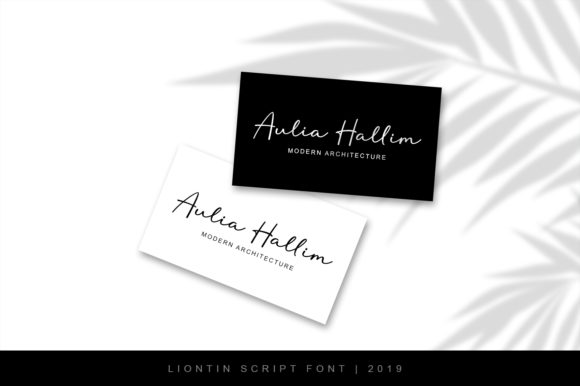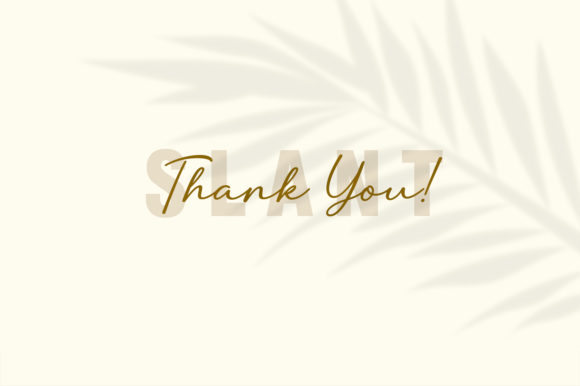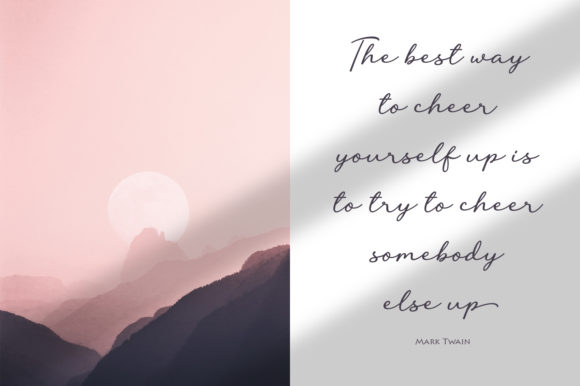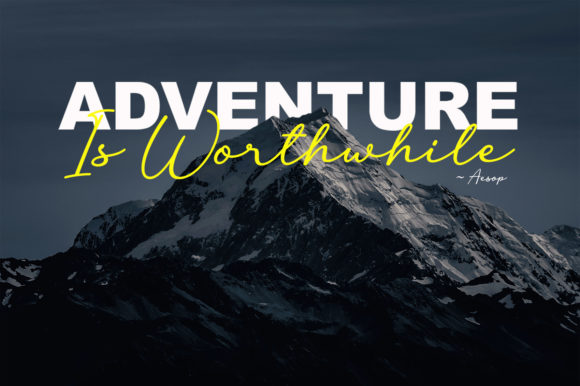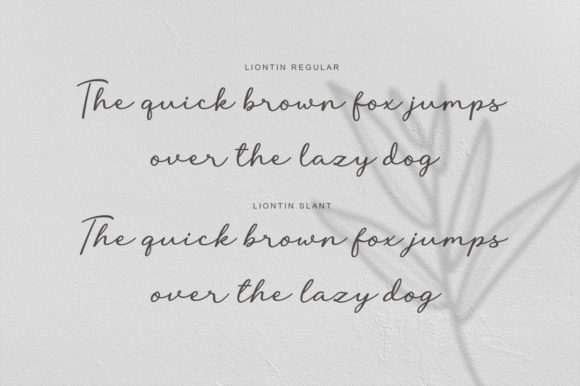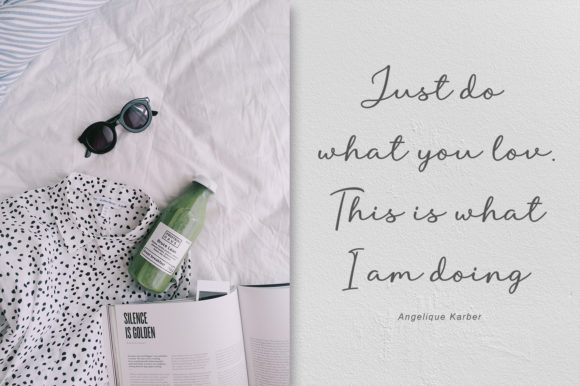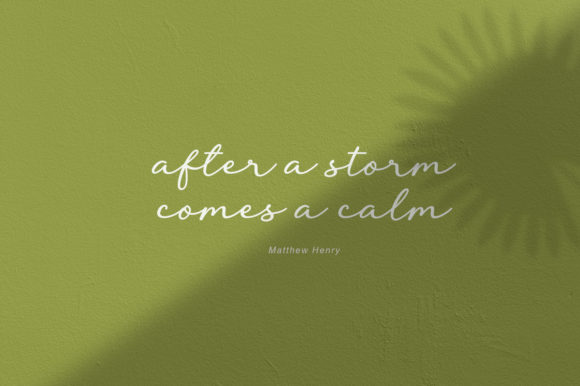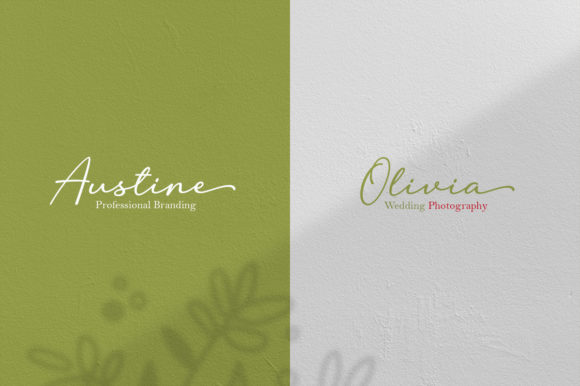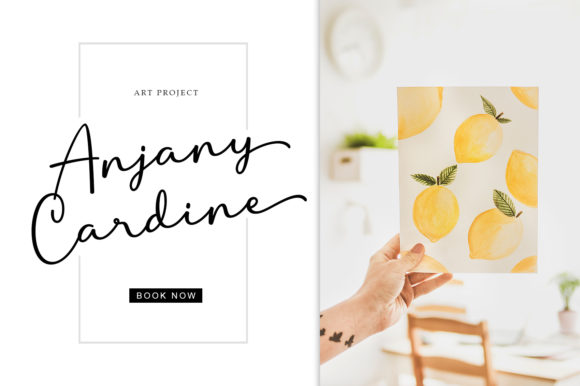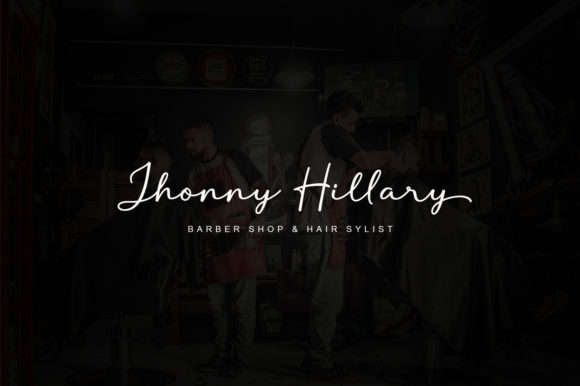
HomeScript FontsLiontin Font Script Fonts Liontin Font FacebookXPinterestWhatsApp Liontin Font Poster 2 Liontin Font Poster 3 Liontin Font Poster 4 Liontin Font Poster 5 Liontin Font Poster 6 Liontin Font Poster 7 Liontin Font Poster 8 Liontin Font Poster 9 Liontin Font Poster 10 Liontin Font Poster 11 Liontin Font Poster 12 Liontin Font Poster 13 Liontin Font Poster 14 Liontin Font Poster 15 Liontin Font Poster 16 About Liontin Font Liontin is a modern script font that’s both charming and elegant. Fall in love with its personal appeal. DOWNLOAD NOW People also explored Peanut Butter and Jealous Duo Font Anthroops Font Christmas Font Fire Stone Font Mactha Font Alevander Font Discovera Font Enivela Font Grilesthy Semi-Bold Font 368 0 TagsLiontin Font Previous articleWorthness FontNext articleBellonda Font LEAVE A REPLY Cancel reply Comment: Please enter your comment! Name:* Please enter your name here Email:* You have entered an incorrect email address! Please enter your email address here Website: Save my name, email, and website in this browser for the next time I comment. Personal Use Free Sarwendah Personal Use Free Read more about this font Burnstown Dam Personal Use Free Read more about this font Cinderella Personal Use Free Read more about this font Kids Toys Personal Use Free Read more about this font BLOG Transform Your Website: Elevate Your Typography with 7 Best Web Font Generators Are you ready to transform your website's typography from ordinary to extraordinary? Great! Today, we're diving into the world of web font generators, which... How to Cut Any Font on Cricut: Convert a Font to SVG (Free) To increase your work productivity, choose the most readable fonts. How to Install and Use Fonts on Windows, macOS, and Web Projects